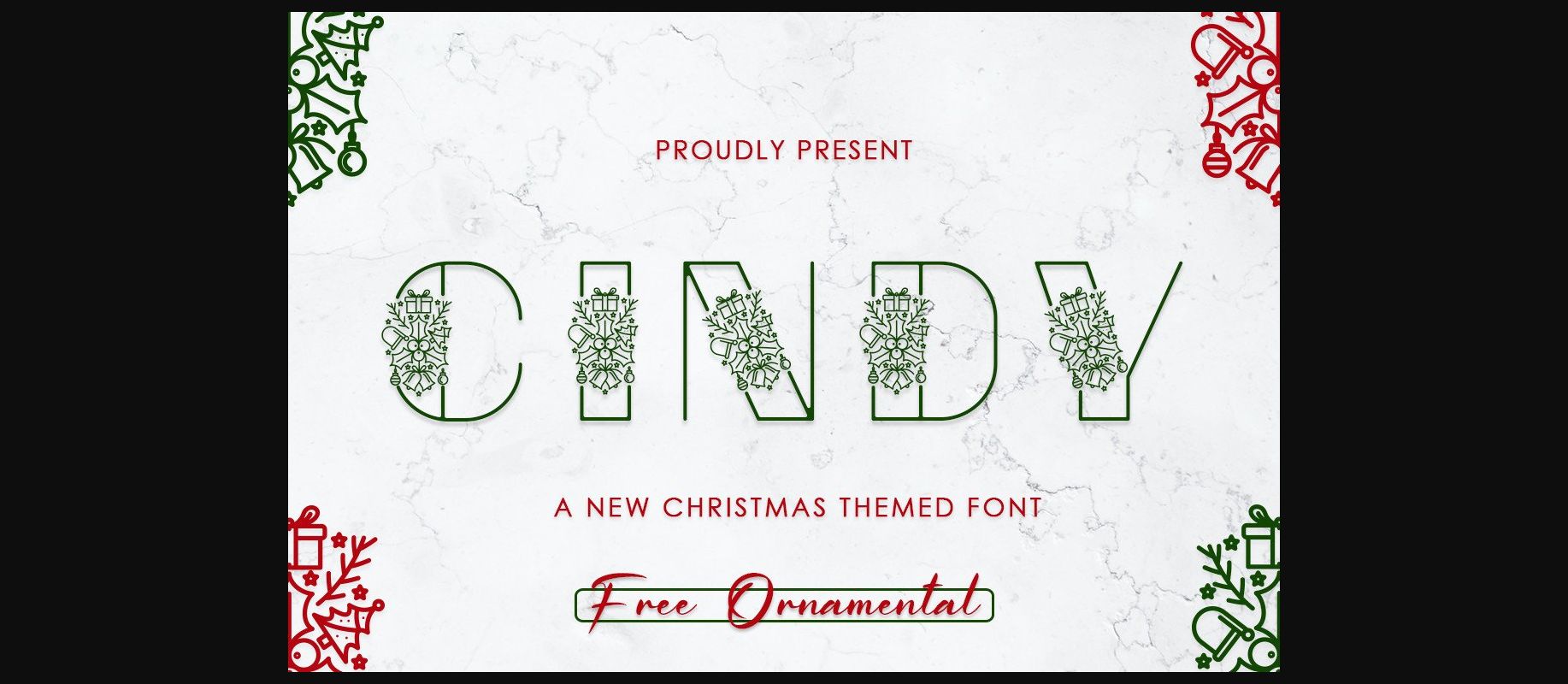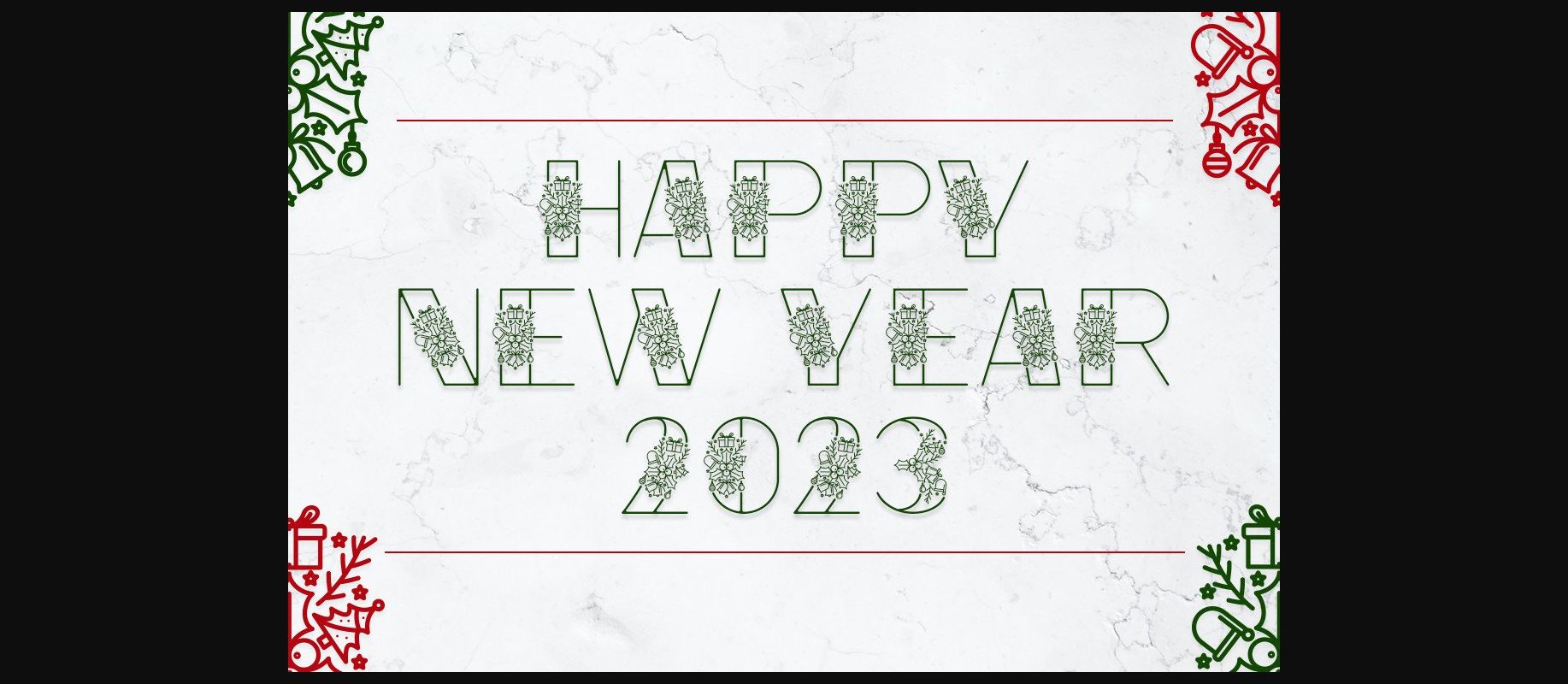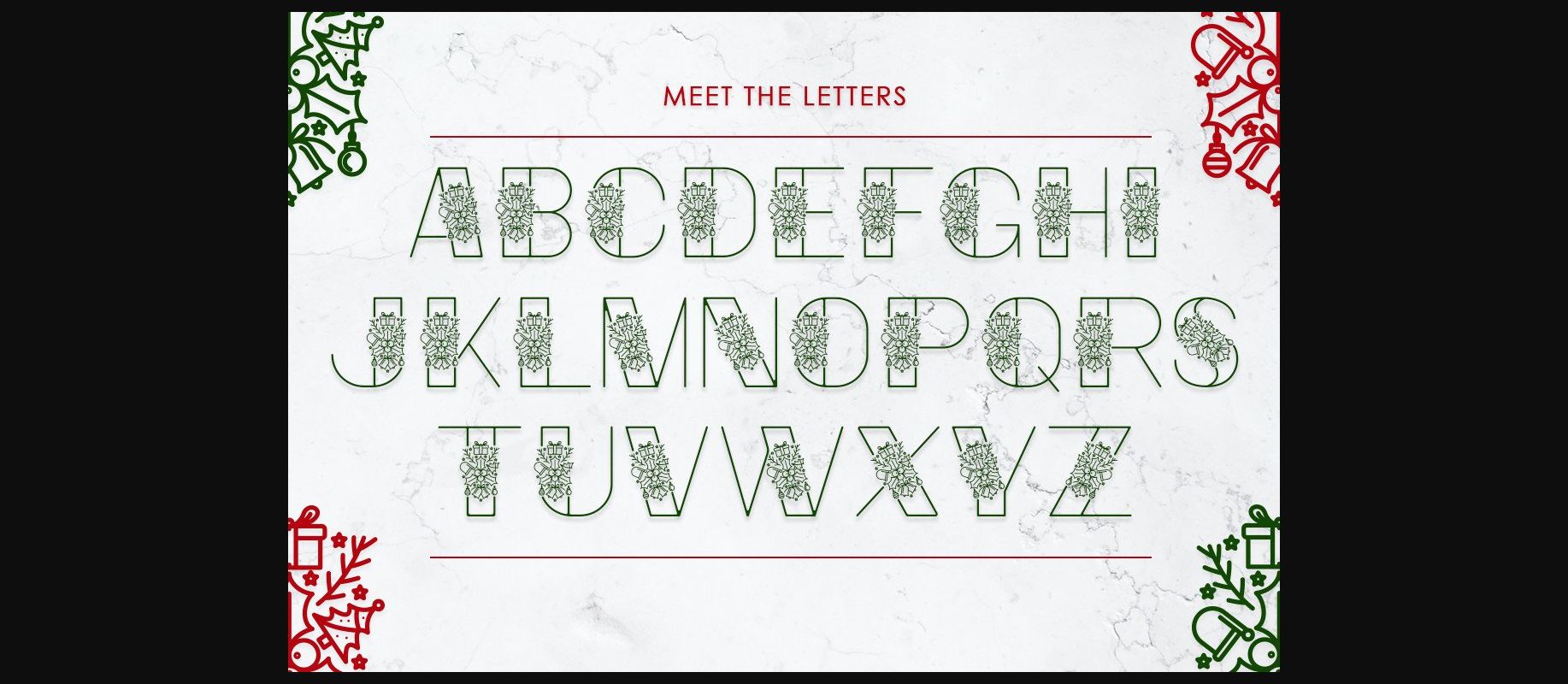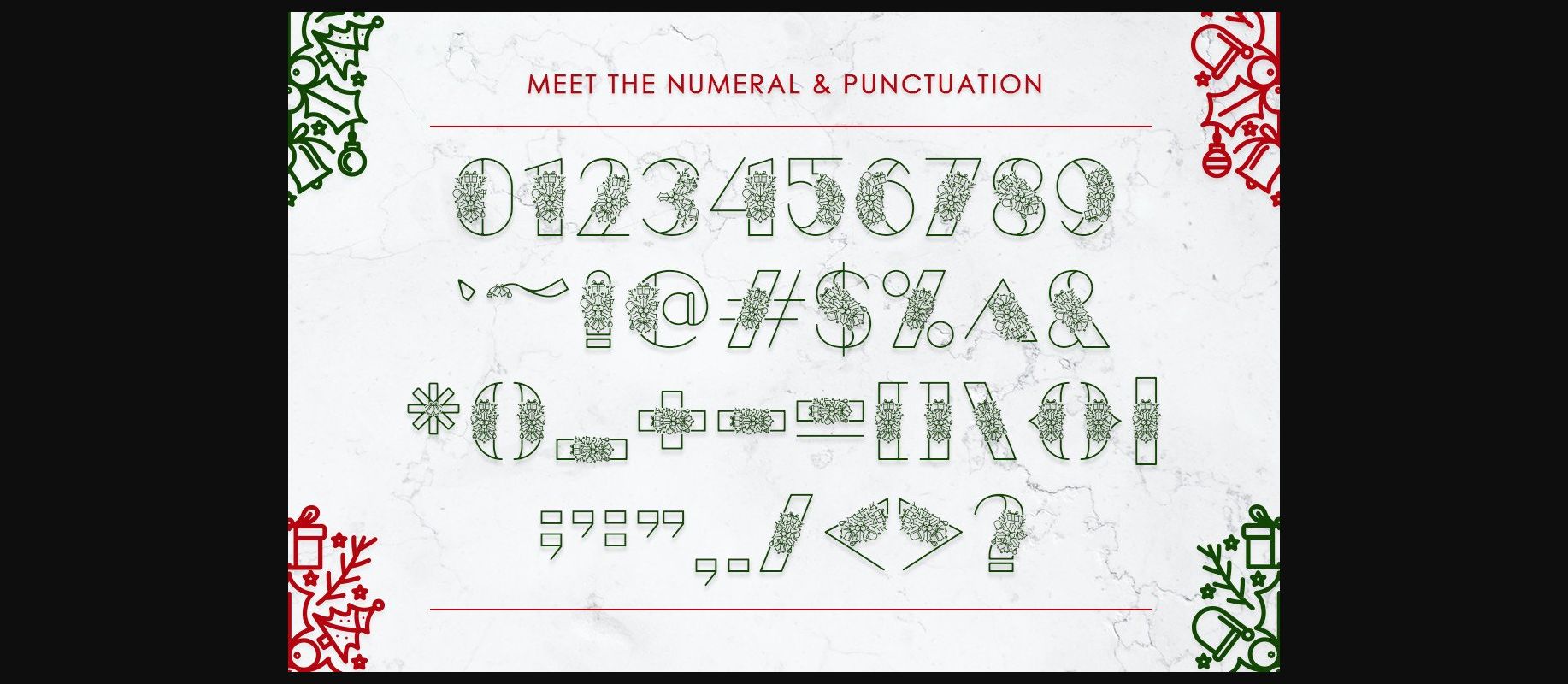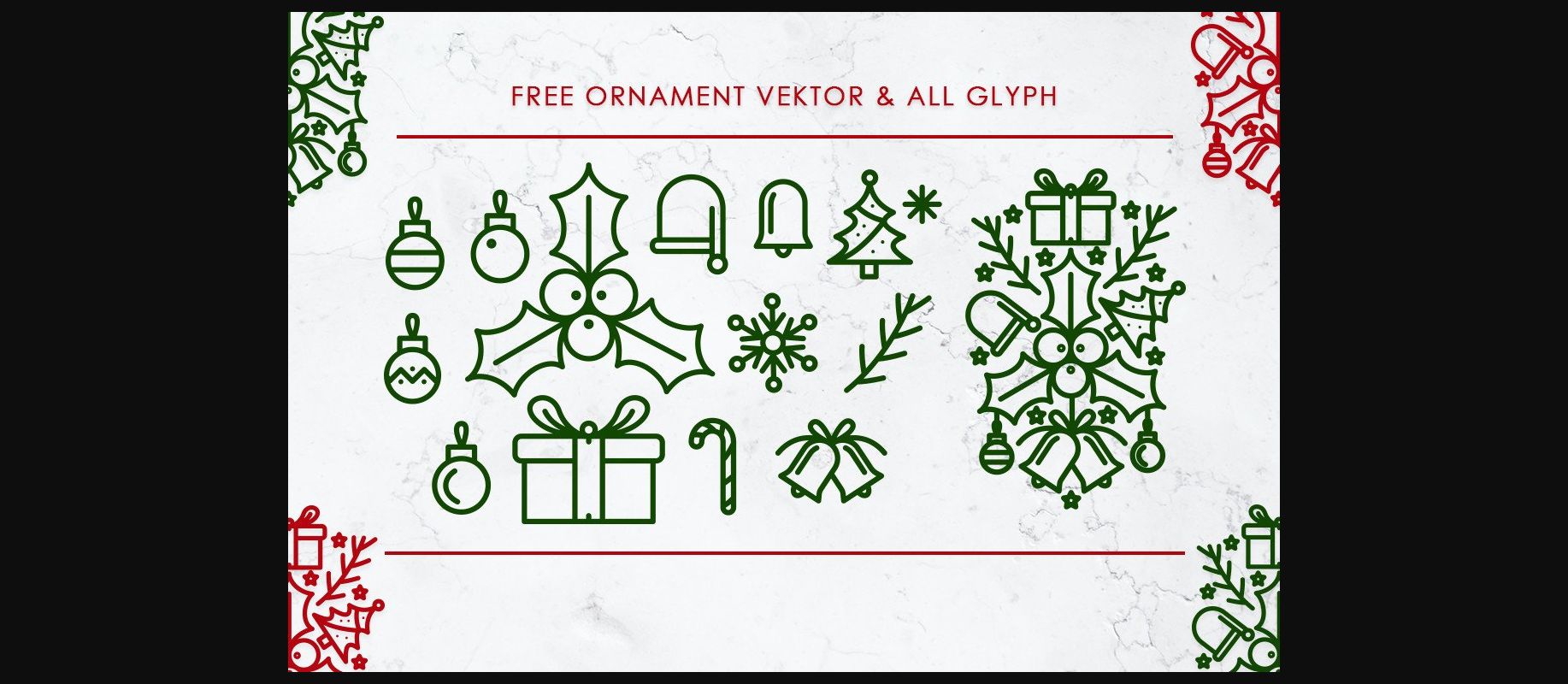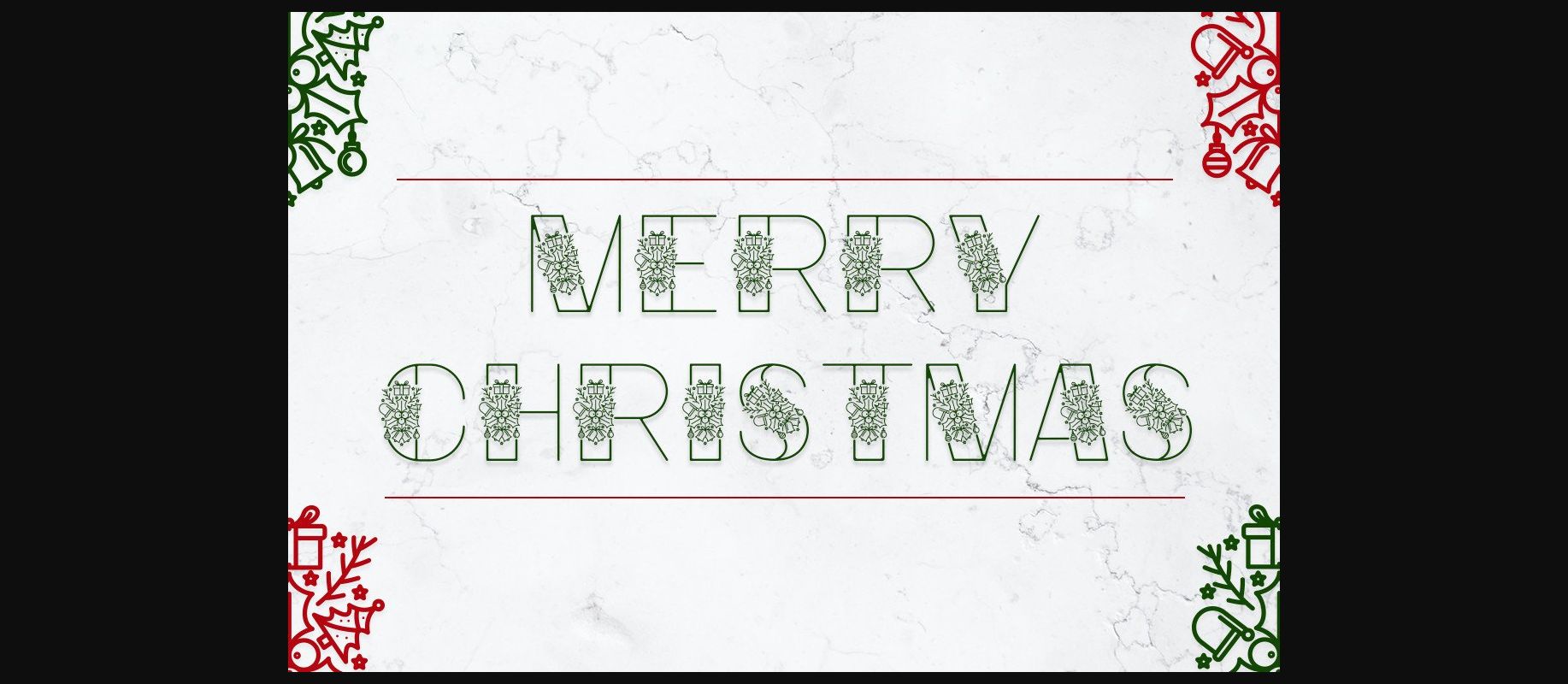
HomeDecorative FontsCindy Font Decorative Fonts Cindy Font FacebookXPinterestWhatsApp 1 of 8 ... Cindy Font Poster 2... Cindy Font Poster 3... Cindy Font Poster 4... Cindy Font Poster 5... Cindy Font Poster 6... Cindy Font Poster 7... Cindy Font Poster 8... About Cindy Font Cindy is a cute and adorable Christmas-themed decorative font. Add it confidently to your holiday-related projects and you will love the results! DOWNLOAD NOW People also explored Pumpkin Spice Font Clarista Font Boldoser Font Wild Animals Font Rosamund Font Kiraly Font Cracked Earth Glyphs Font Mitchegrin Font Clackhead Font 422 0 TagsCindyCindy Font Previous articleMoth Halloween Monogram FontNext articleCute Bones Font LEAVE A REPLY Cancel reply Comment: Please enter your comment! Name:* Please enter your name here Email:* You have entered an incorrect email address! Please enter your email address here Website: Save my name, email, and website in this browser for the next time I comment. Personal Use Free Kinda Sweet Personal Use Free Read more about this font Equalizer Script Personal Use Free Read more about this font Merak Personal Use Free Read more about this font Vanity Personal Use Free Read more about this font BLOG How to Cut Any Font on Cricut: Convert a Font to SVG (Free) Turn any font into a clean SVG so it cuts crisp on Cricut - a quick 3-step workflow using a free font-to-SVG tool. Best Fonts for YouTube Videos: Make Your Thumbnails Stand Out Top 10 Handwritten Fonts That Elevate Your Designs Using Fonts in Digital Marketing: Tips to Strengthen Your Brand Identity